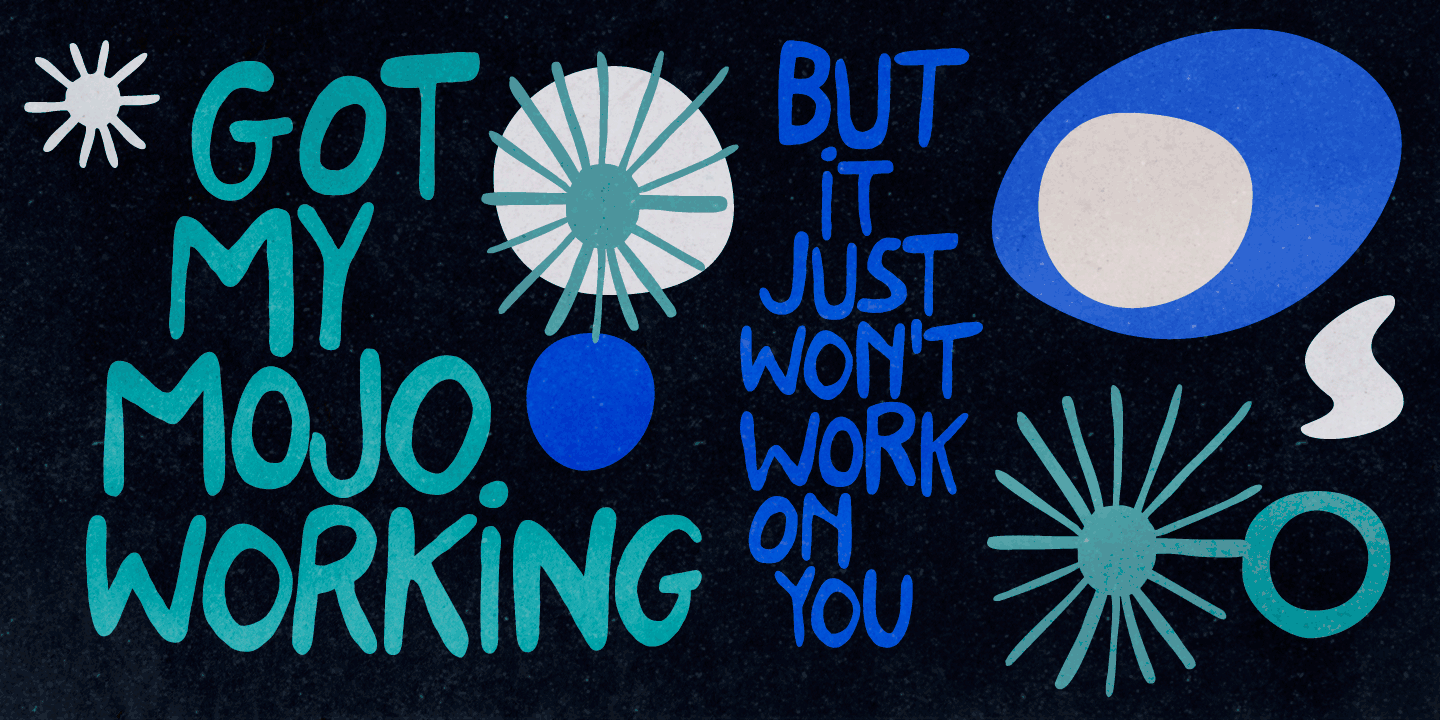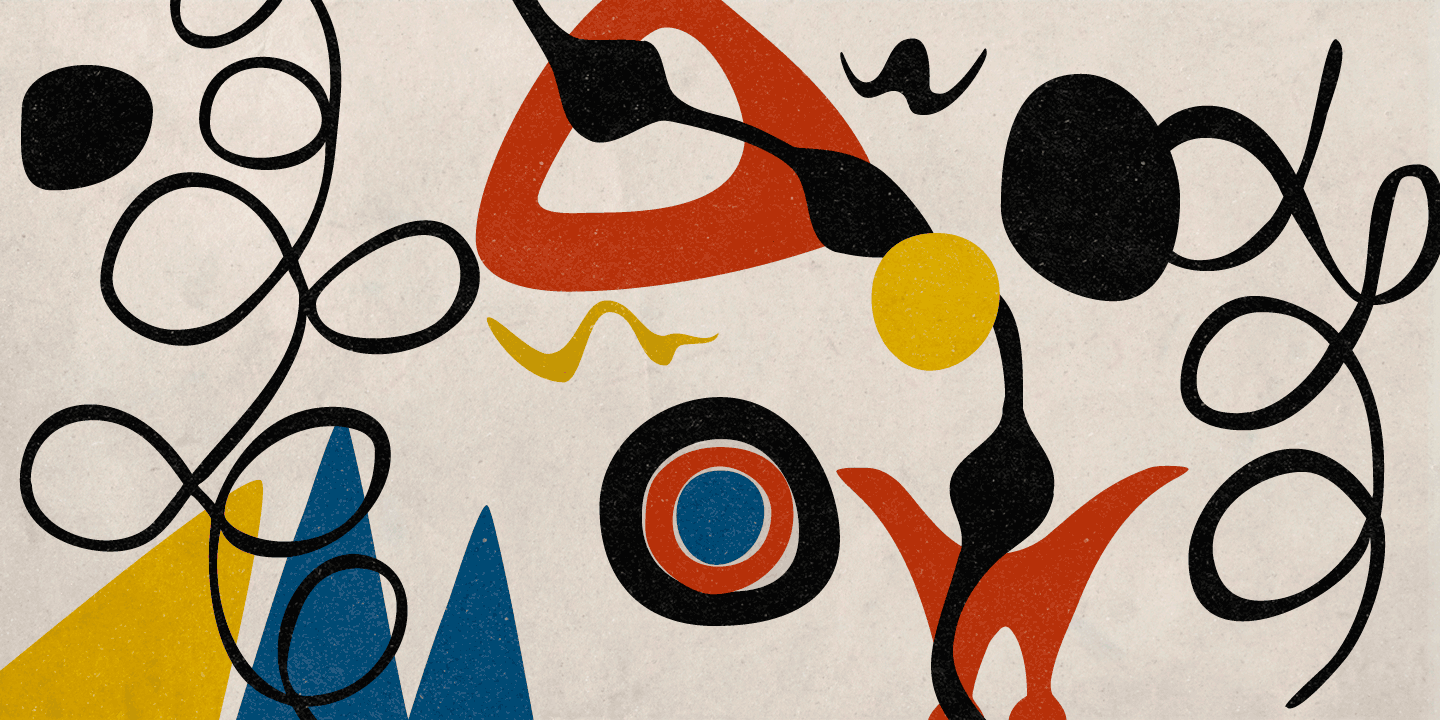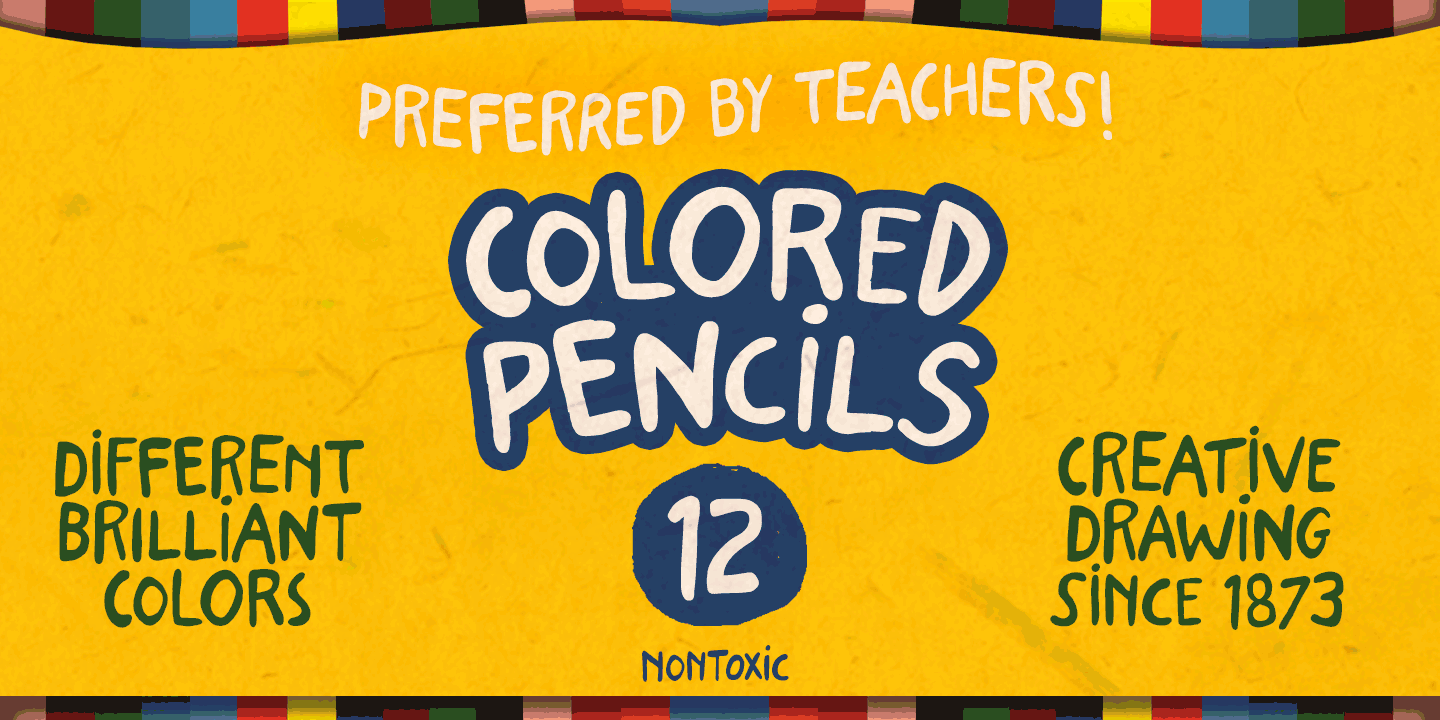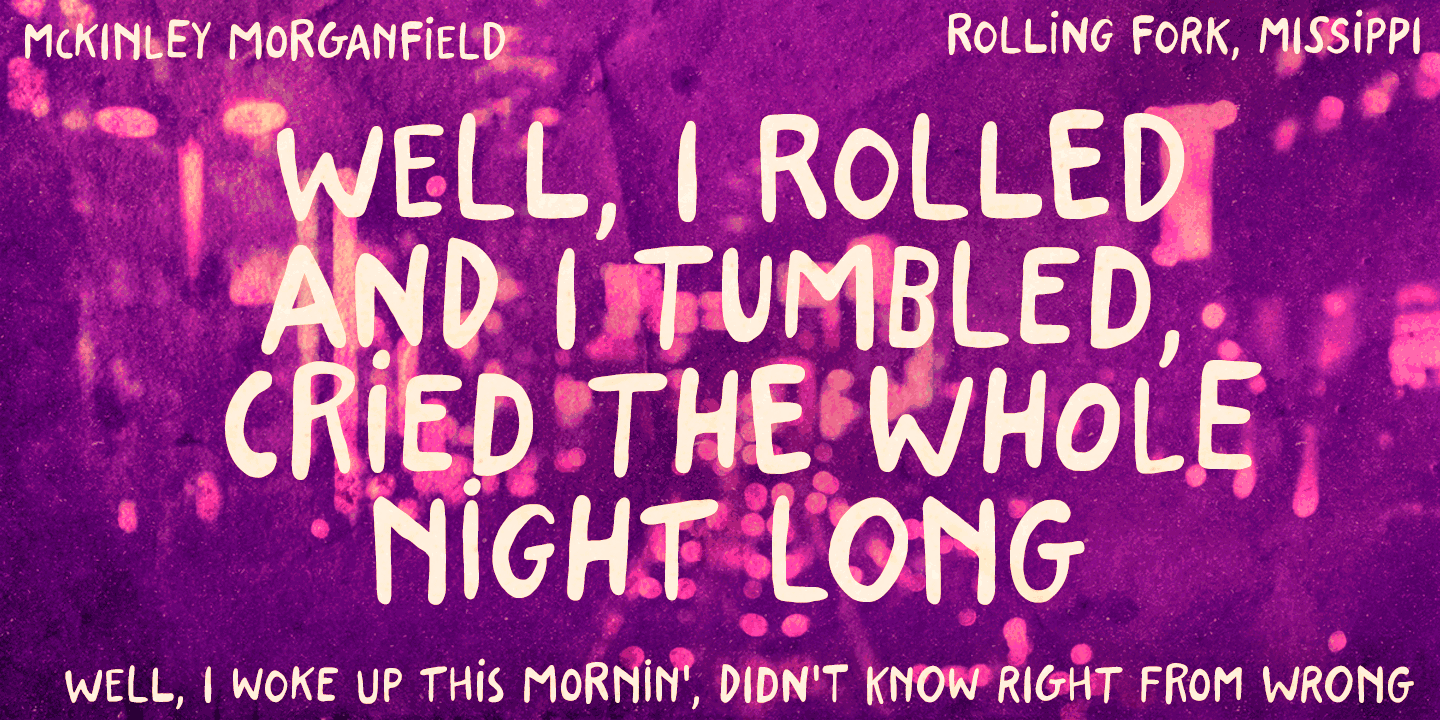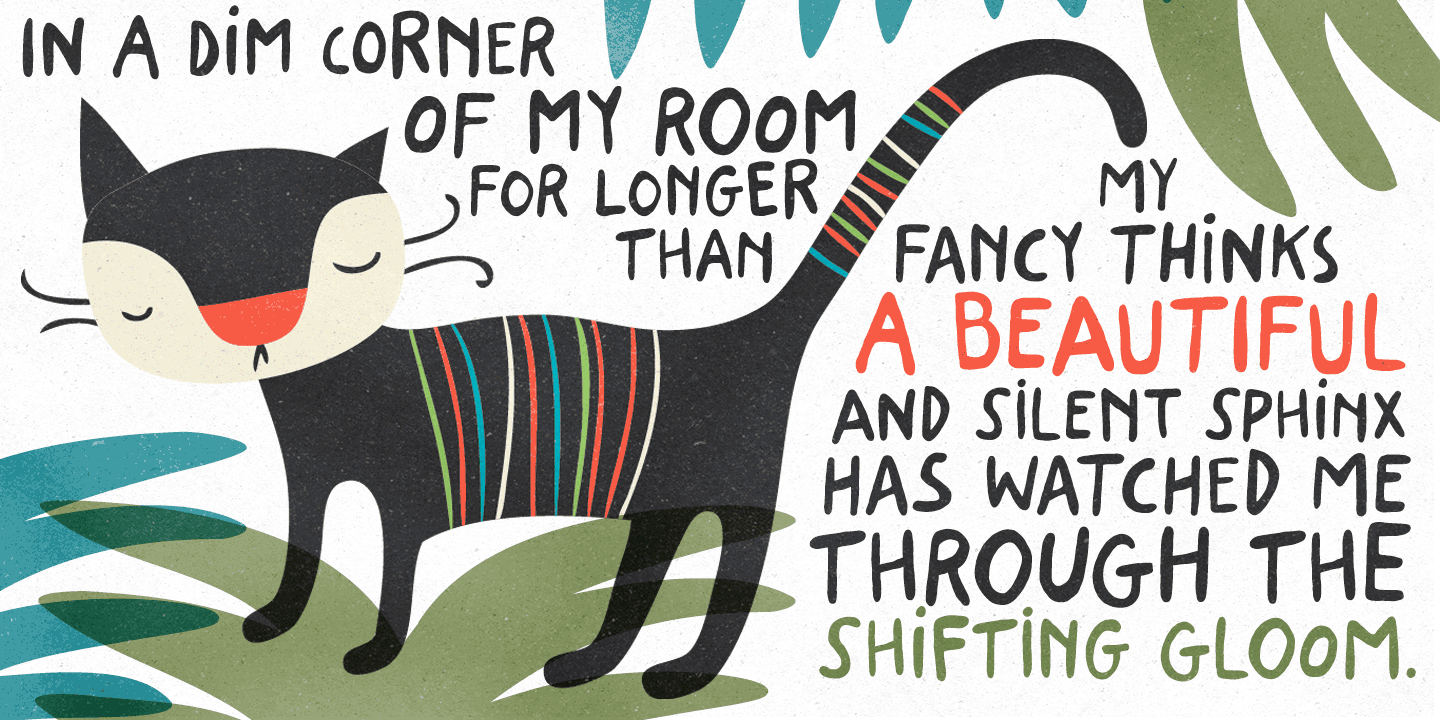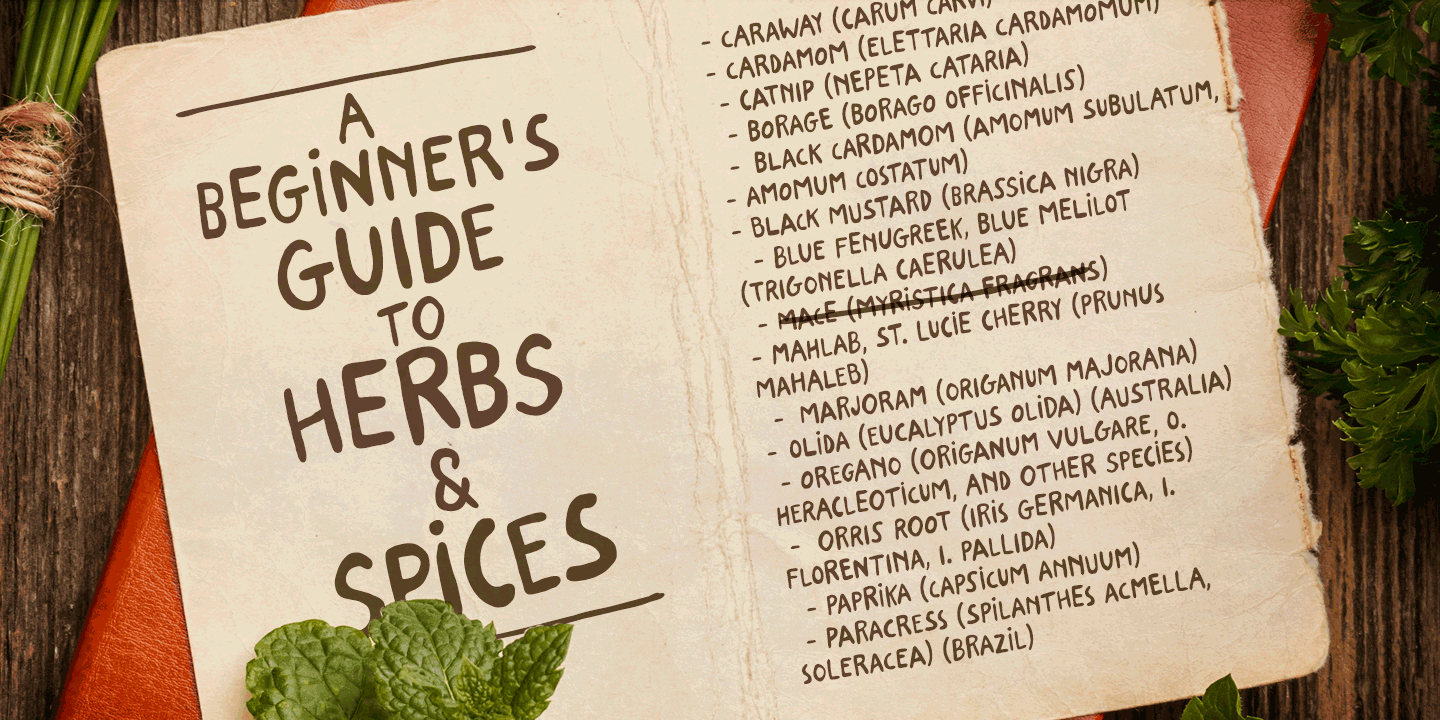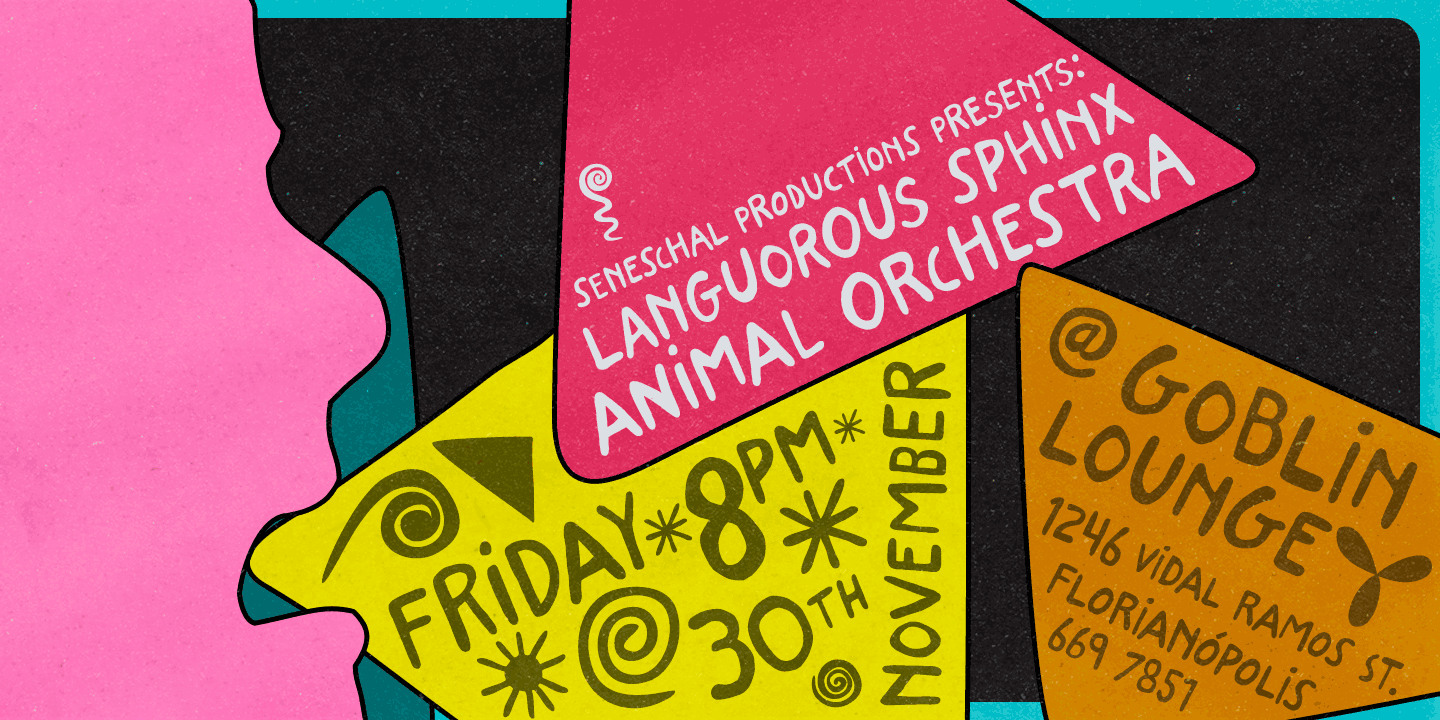
About the Stabile Font
About Stabile Font Family Stabile is a rather stylish casual font with loads of good vibes and alternates: there are four glyphs for each letter, two for each numeral plus swashes to this side and the other. Two for each side, in fact. It’s a flexible font that looks unique and quite distinctive, with its charming uneven look that gets even more uneven when Contextual Alternates are turned on.Stabile family brings a delish accompanying font, Stabile Toys, packed with organic shapes inspired by the breathtaking work of the american artist Alexander Calder.
These play together deliciously well, you can bet. Are you prepared to balance them? Enough reading, then, just go ahead!A couple quick notes on usage:. Go with Contextual Alternates to instantly cycle glyphs. Eye-catching results guaranteed!. Swash feature turns on (guess what…) swashes. But there’s always alternative swashes, like to this side going up or to this side going down, that side up or down, so it’s cool to pick your choices through a glyphs palette. Designers: Erica Jung, Ricardo MarcinPublisher: PintassilgoPrintsFoundry: PintassilgoPrintsDesign Owner: PintassilgoPrintsMyFonts debut: Mar 18, 2015 Stabile™ is a trademark of PintassilgoPrints.